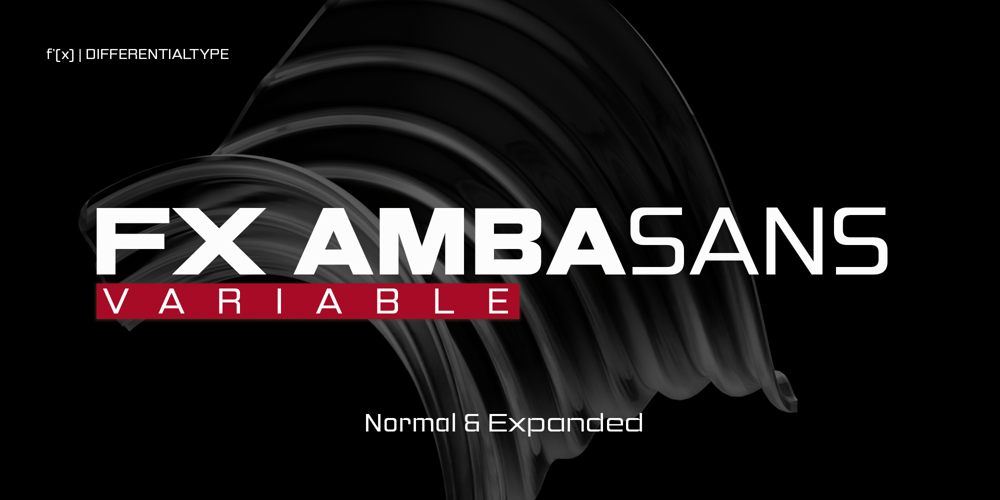
FX Ambasans Variable Font Family was designed by Sidik Sidik and published by Differentialtype. FX Ambasans Variable contains 1 styles and family package options. Introducing FX Ambasans Variable, a versatile sans serif typeface that offers a range of weights and widths. This typeface embodies a strong, modern aesthetic that jumps off the page, making it an irresistible choice for designs that demand attention. From bold, eye-catching headlines to highly readable document content, FX Ambasans Variable seamlessly aligns style with readability. FX Ambasans Variable thrives on flexibility, offering a treasure trove of different letter weights and widths, ready to be used individually or woven into a single, cohesive look.